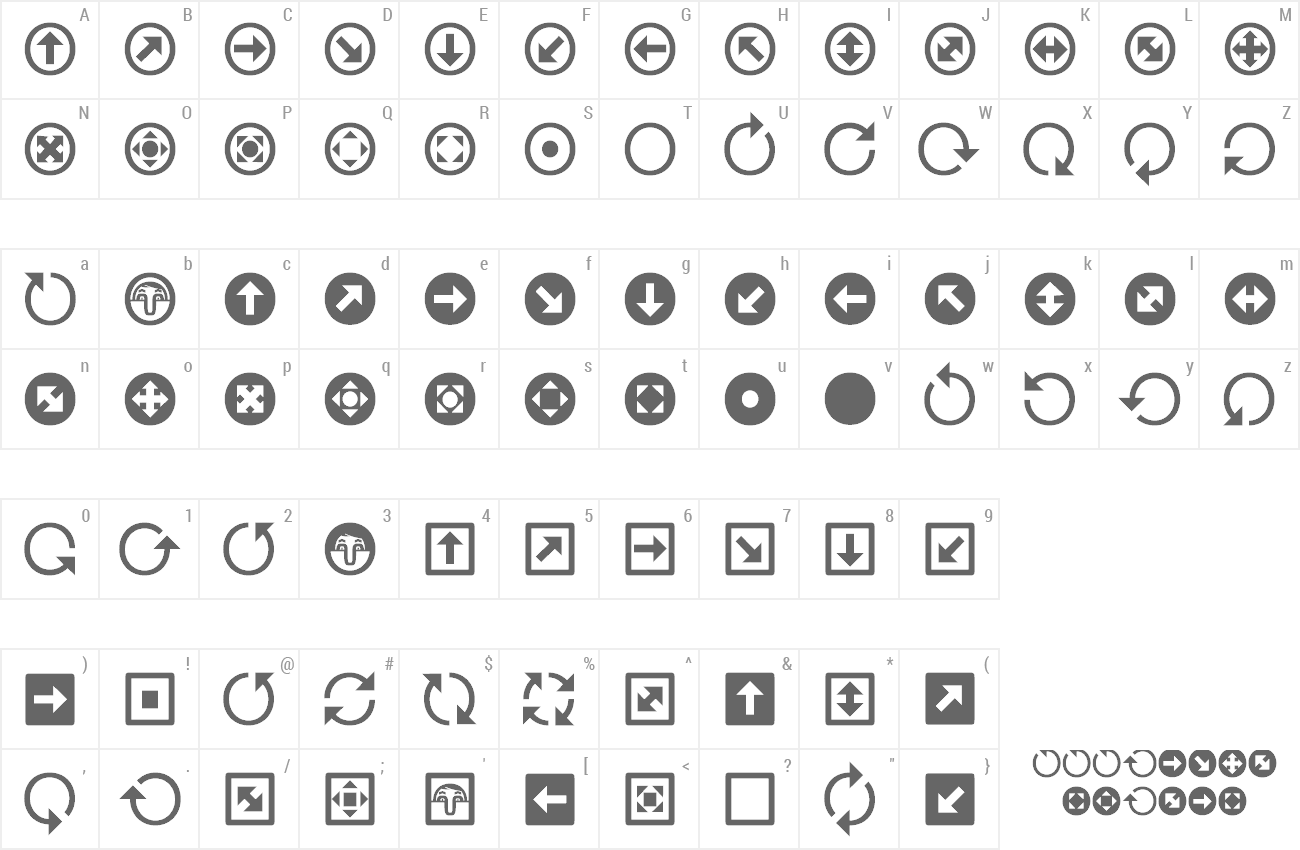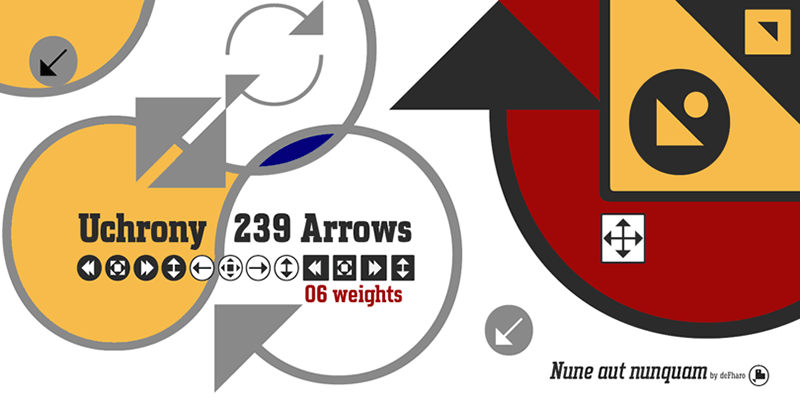
| Font name: | Uchrony Arrows |
| Categories | Dingbats, Shapes |
| Author: | deFharo |
| Note by deFharo | |
Uchrony is a condensed proportion slab serif typeface. The font family is made up of 3 styles, Roman, Small Caps & Italics, with 6 weights each (Extra Light, Light, Regular, Medium, Bold and Extra Bold). Uchrony Arrows is an extra style that complements the rest of the Uchrony font styles, to create attractive designs or signage. ================================= FULL VERSIONS & COMMERCIAL LICENSES https://defharo.com/fonts/uchrony-slab-serif/ |